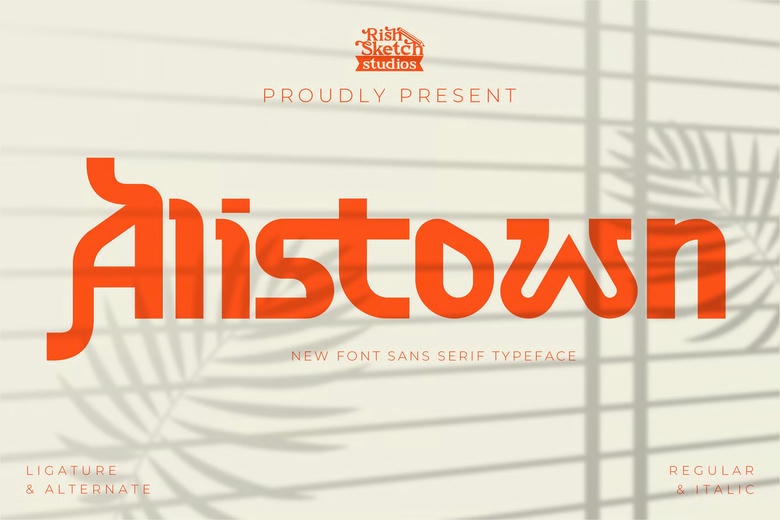
Alistown Font
Alistown is a high quality modern sans serif font that is designed by sparklethings and is available for free download and personal use. It can be used perfectly in headlines, branding, logos, packaging, elements of editorial layouts and is developed to make an lasting impression. The free version provides all uppercase and lowercase letters and a few special characters too.
Alistown Sans Serif Font